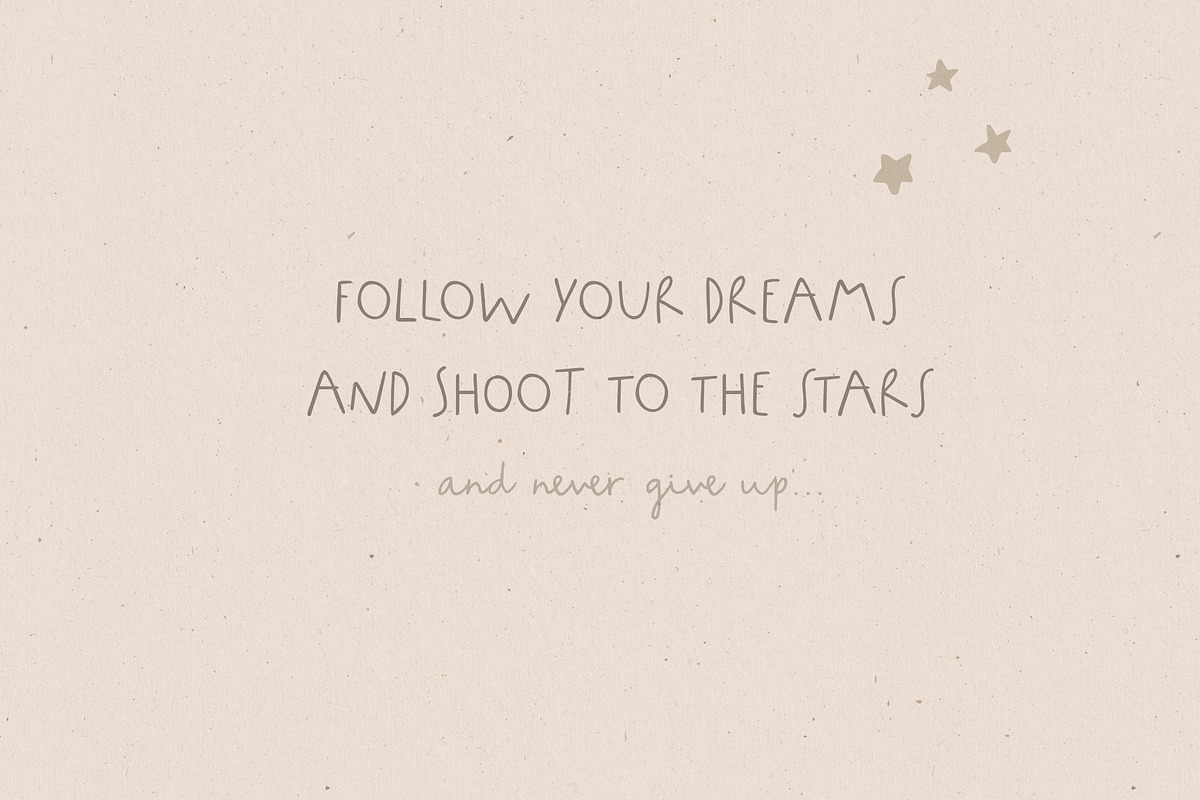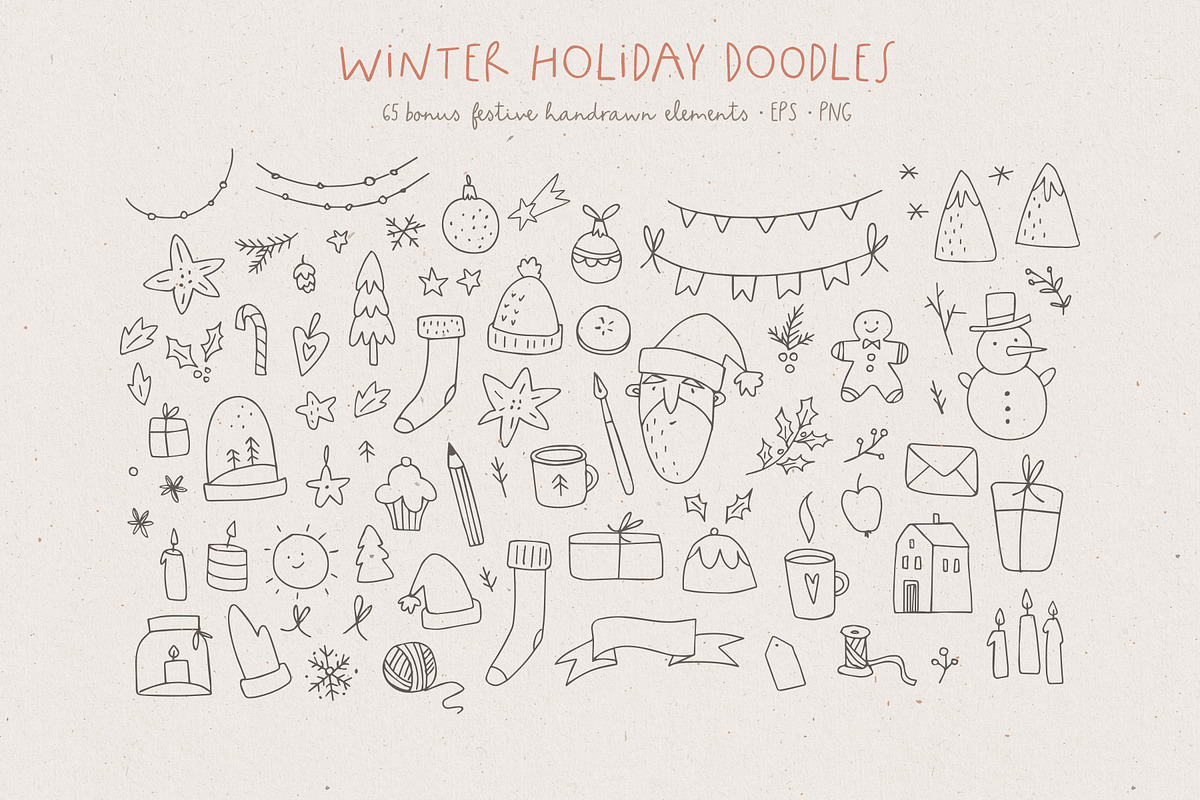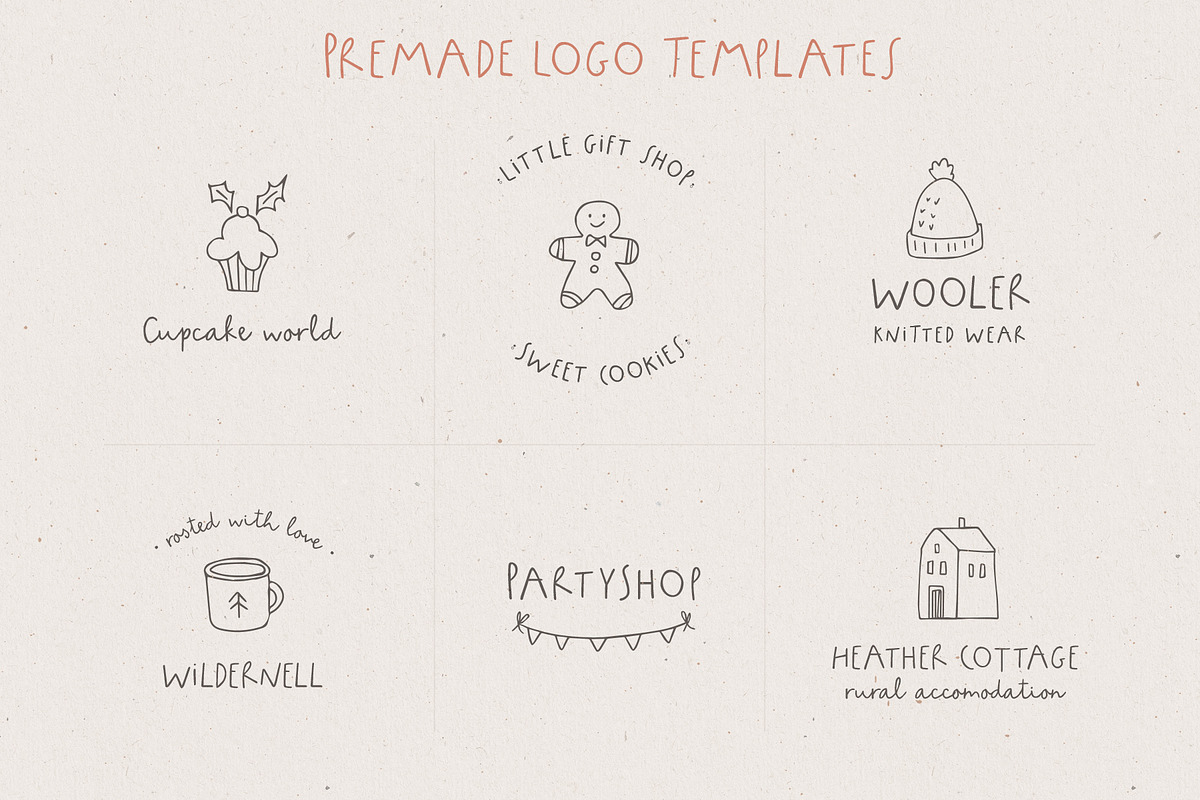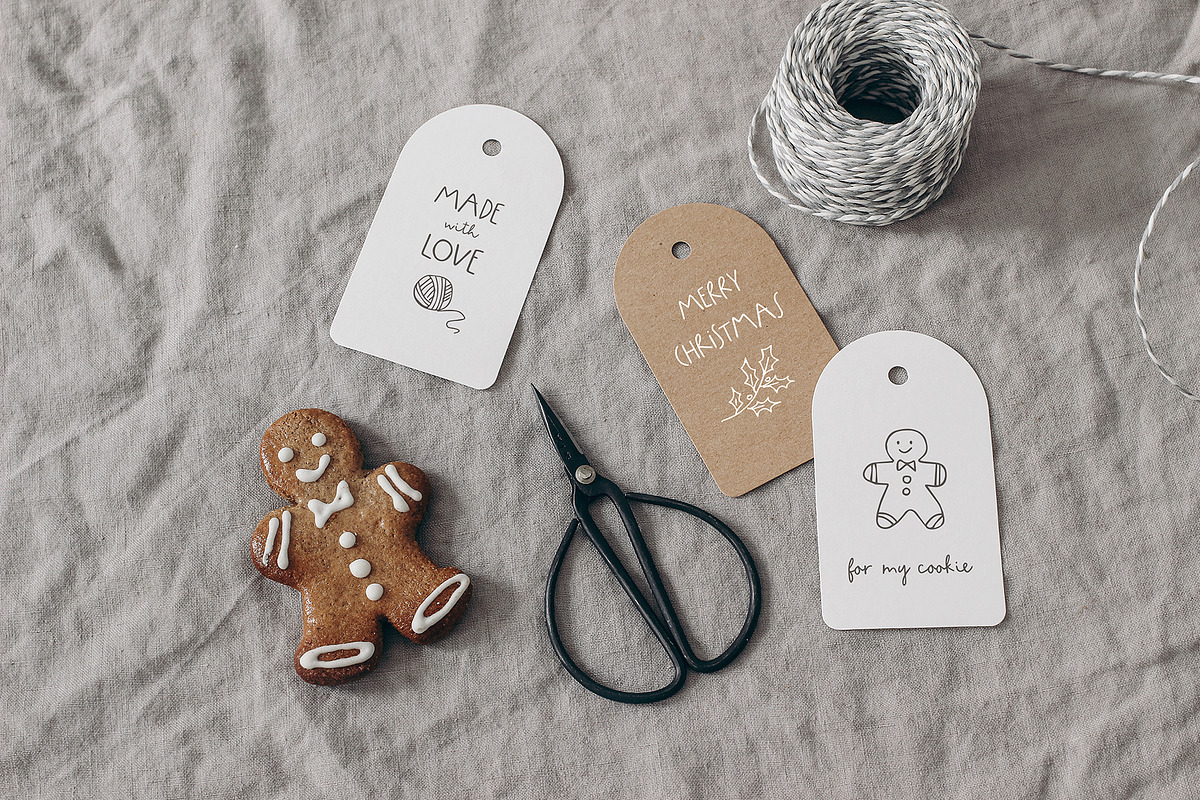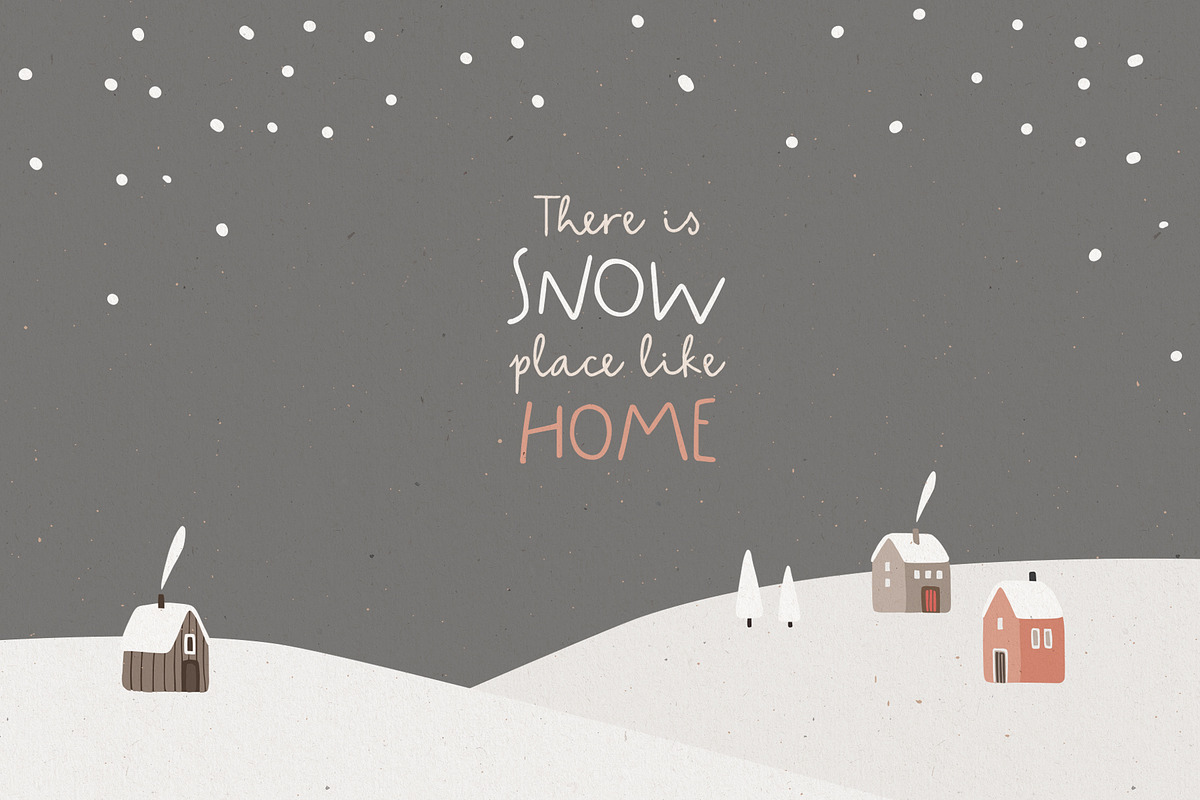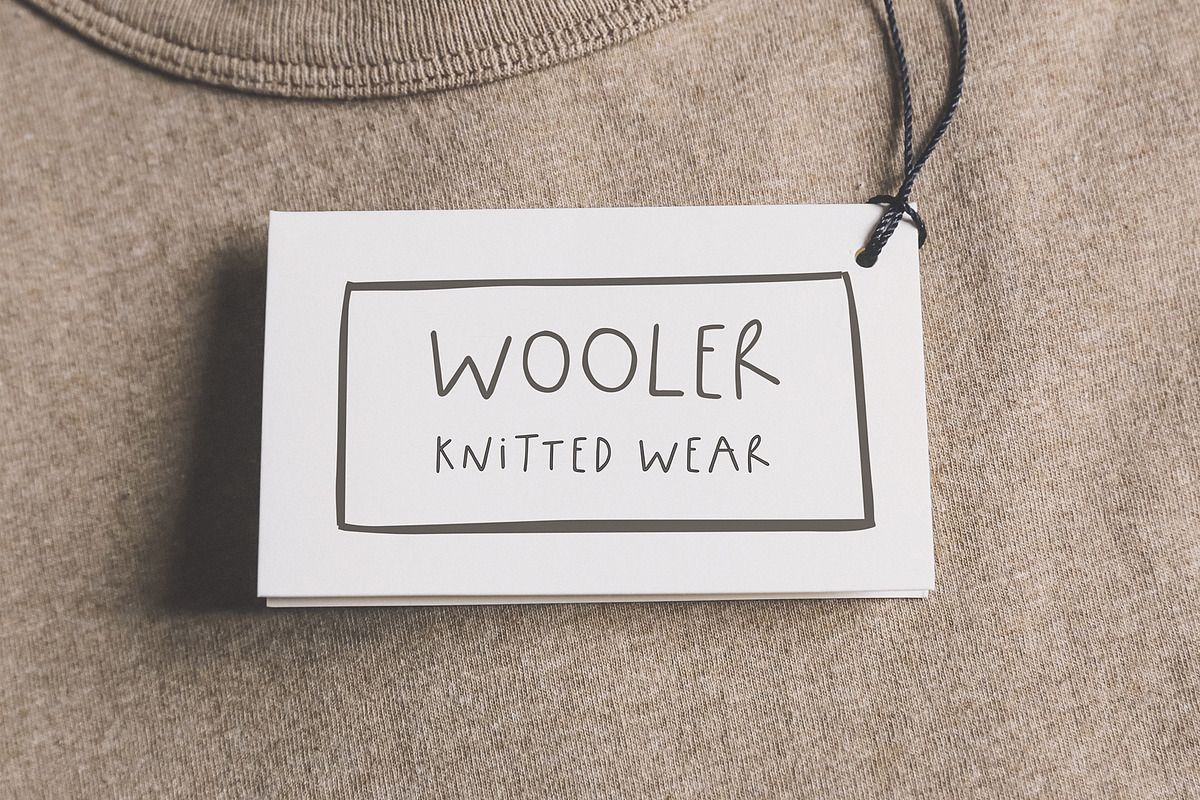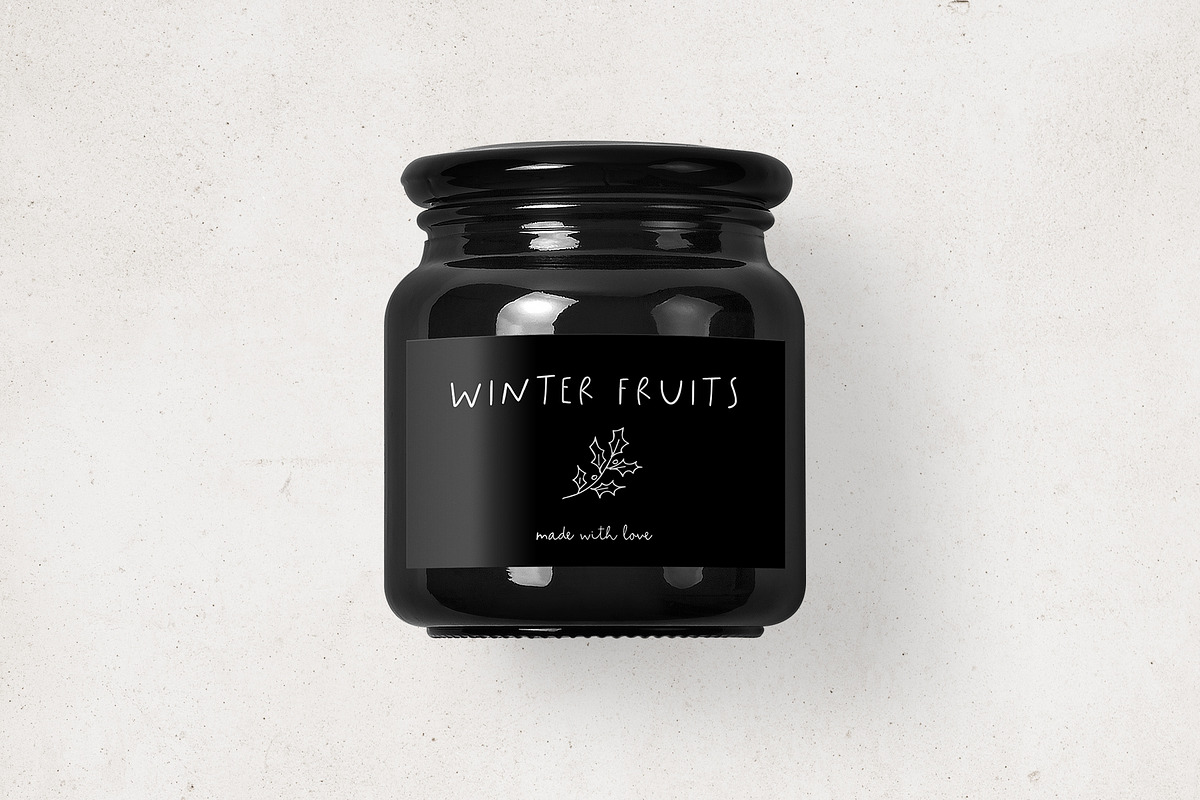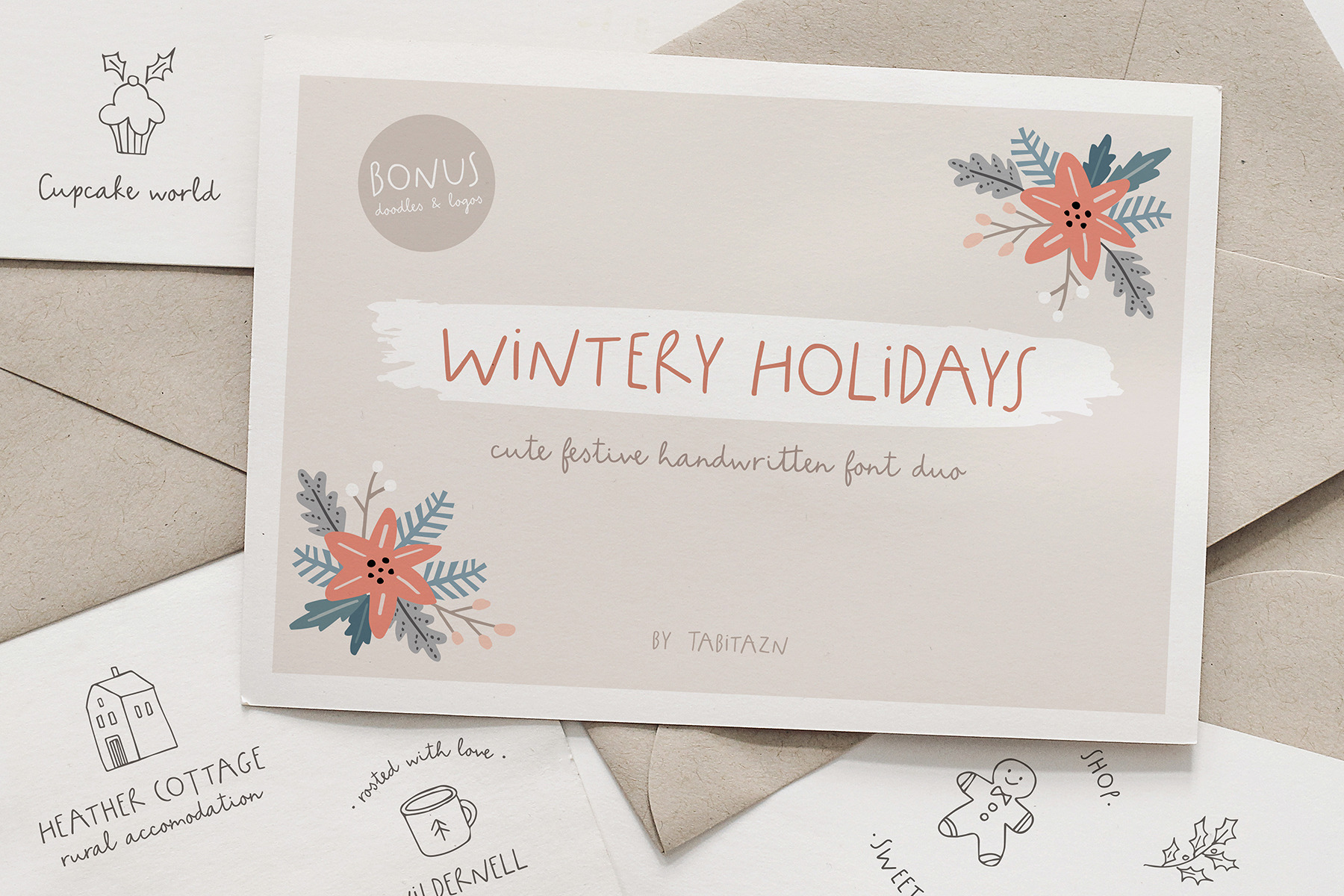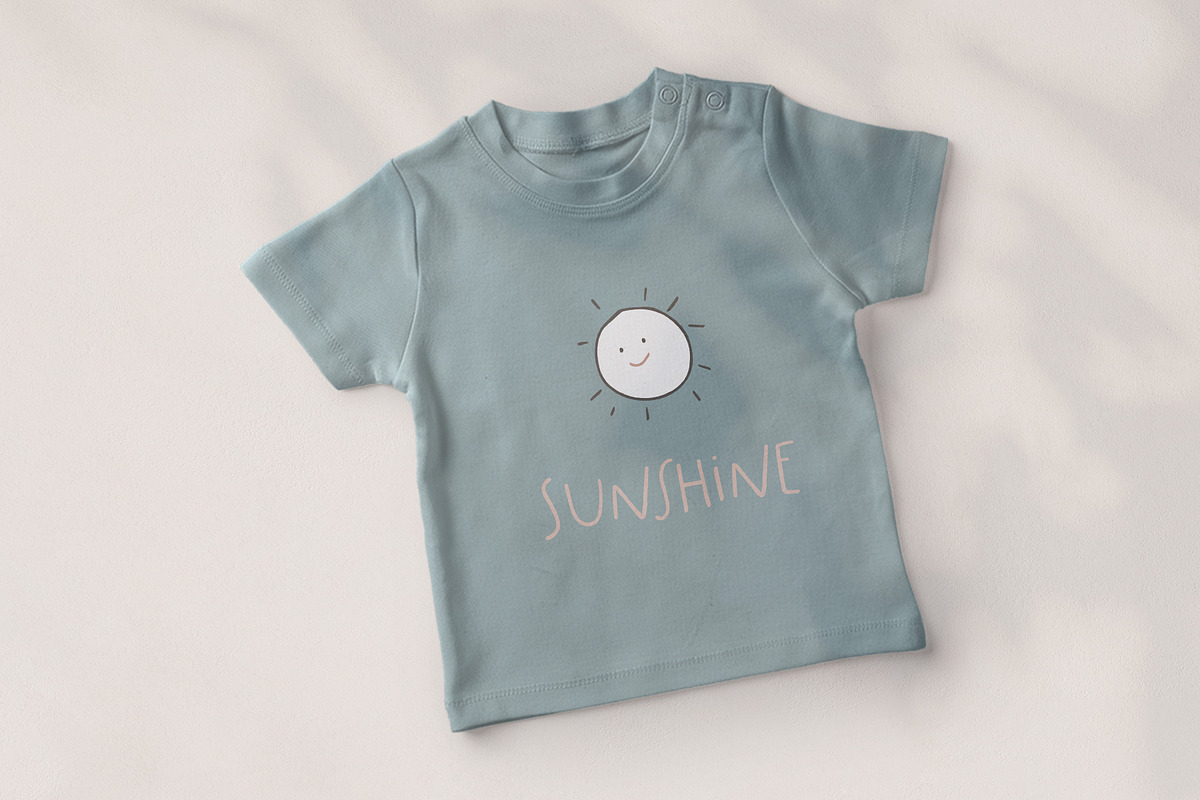
Wintery Holidays font duo, logos
Say hello to Wintery Holidays, a festive handwritten font duo, including cute & funny script and sans.
BONUS 82 hand-drawn doodles and 6 logo templates to stimulate your creativity!
Wintery Holidays works beautifully on posters, greeting cards, letters, signage, labels, mugs, invites, branding and quotes!